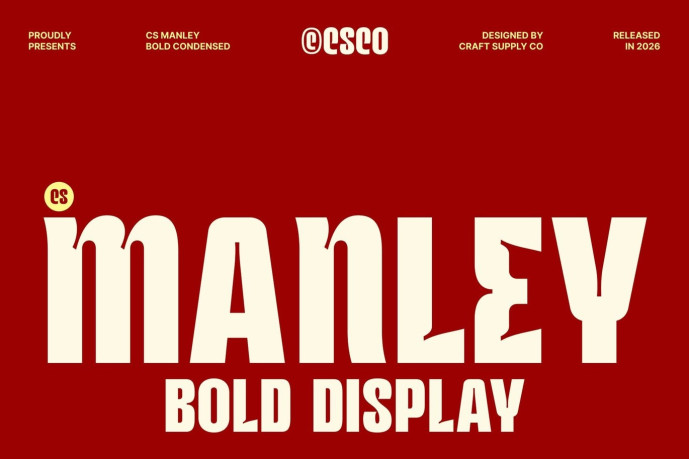
Manley – Inktrap Font
Designer: Craft Supply Co.
CS Manley – Bold Condensed Sans Serif Font: Where Strong Impact Meets Playful Inktrap Character Tall, Clean Forms with Powerful Presence This is a bold condensed sans serif font designed to maximize visual impact through its tall proportions and strong structure. Its clean, modern letterforms create a commanding presence while efficiently utilizing space, making it ideal for headlines, posters, and display typography. The condensed construction enhances its bold personality, ensuring every message feels clear, confident, and attention-grabbing.
Inktrap Details with Distinctive Appeal This font introduces subtle cuts and refinements that add depth, clarity, and unique character to the typeface. These details not only improve readability but also give the font a distinctive visual identity. The result is a contemporary design that feels polished, expressive, and full of personality.
Modern Strength with Playful Individuality While its bold construction creates immediate visual impact, playful design elements add charm and individuality to the overall appearance. This balance between strength and character allows to feel both professional and approachable, making it highly versatile across a wide range of creative and commercial applications.
Perfect for Displays, Posters, and Packaging Perfect for eye-catching displays, bold posters, branding projects, advertising campaigns, packaging, social media graphics, merchandise, event promotions, and creative visual identities. Its distinctive inktrap forms make it ideal for logos, headlines, titles, and promotional materials that seek to communicate confidence, originality, and modern energy.